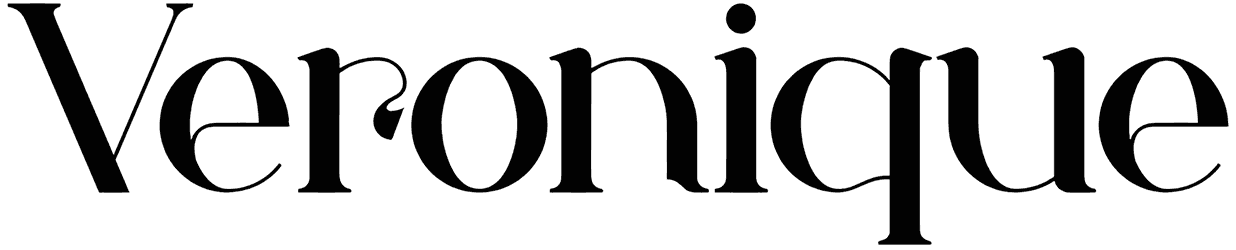
Veronique Font
Introducing Veronique, a classy, elegant, yet trendy serif font that will shine through your work. It has two styles providing a remarkable touch that people won’t soon forget. This font can be used for many types of projects, such as fashion branding, magazine covers, wedding invitations, movie posters, product packaging, etc. So enjoy every moment of designing and make the best outcomes.